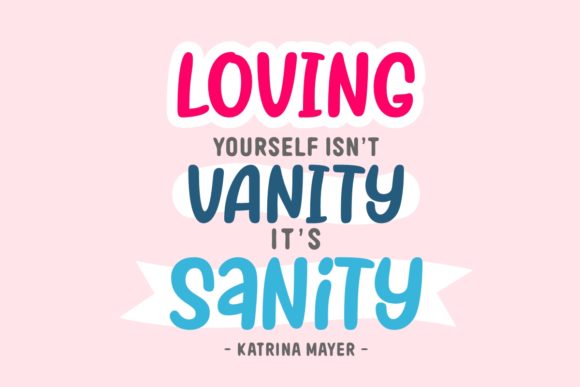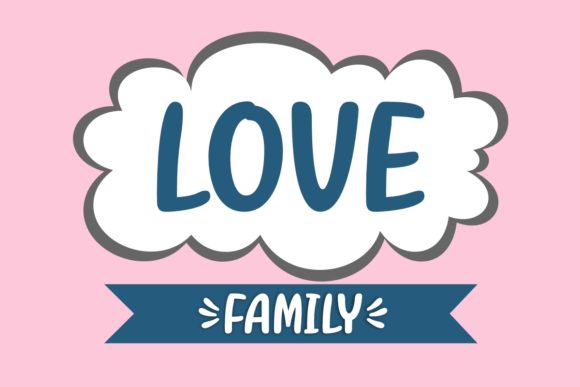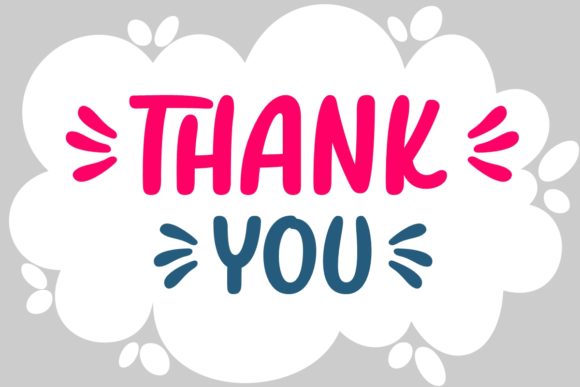
Introduction to Hila Bright Font
Do you remember the excitement of creating colorful posters for your school projects or decorating cards for your friends? For many of us, those moments are etched in our memories as a time of unbridled creativity. As designers, we strive to recapture that sense of joy and playfulness in our work, and that’s exactly what the Hila Bright Font offers.
As a high-quality design resource, the Hila Bright Font is a valuable addition to any designer’s toolkit. Its fun and joyful handwritten style makes it perfect for a wide range of creative projects, from children’s crafts to social media graphics. With its transparent background, you can easily combine it with other design elements to create unique and eye-catching visuals.
Key Features of Hila Bright Font
- The Hila Bright Font is a high-quality design resource ideal for creative projects.
- The font features a transparent background, providing flexibility for designers to customize their work.
- The font comes in a single weight, making it suitable for use in a wide range of creative projects.
- The Hila Bright Font is designed to be legible and visually appealing, making it a valuable addition to any design resource library.
Honest Review: Hila Bright Font
I recently had the chance to work with the Hila Bright Font, and I must say it’s been a fantastic addition to my design resource library. As a designer, I’m always on the lookout for high-quality fonts that can elevate my creative projects.
Here are some things that work well with the Hila Bright Font: ✨ It’s incredibly versatile and can be used for a wide range of design applications, from logos to social media graphics. The font is also super easy to customize, making it a great choice for designers who want to add a personal touch to their work. Additionally, the transparent background feature is a huge plus, as it allows for seamless integration with other design elements.
Some potential limitations of the Hila Bright Font include: ⚠️ It may not be suitable for use in very small text sizes, as the font can appear a bit blurry at low resolutions. Additionally, some users may find the font’s style to be a bit too modern or trendy, which could be a drawback for those who prefer more classic designs.
Overall, I’m really impressed with the Hila Bright Font, and I would definitely recommend it to designers who are looking for a high-quality, free download that can help take their creative projects to the next level.
- Transparent background feature
- Very versatile and customizable
How to Use Hila Bright Font
Tips for Getting the Most Out of Hila Bright Font
Hila Bright Font is commonly used in graphic design, digital art, and print media. It’s ideal for creating eye-catching headings, titles, and quotes. The font’s high quality and versatility make it a popular choice among designers.
Does Hila Bright Font have a transparent background?
Yes, Hila Bright Font features a transparent background, making it perfect for use in various design applications, including logos, icons, and graphics. This feature allows you to easily place the font over any background without worrying about the background color interfering with the design.